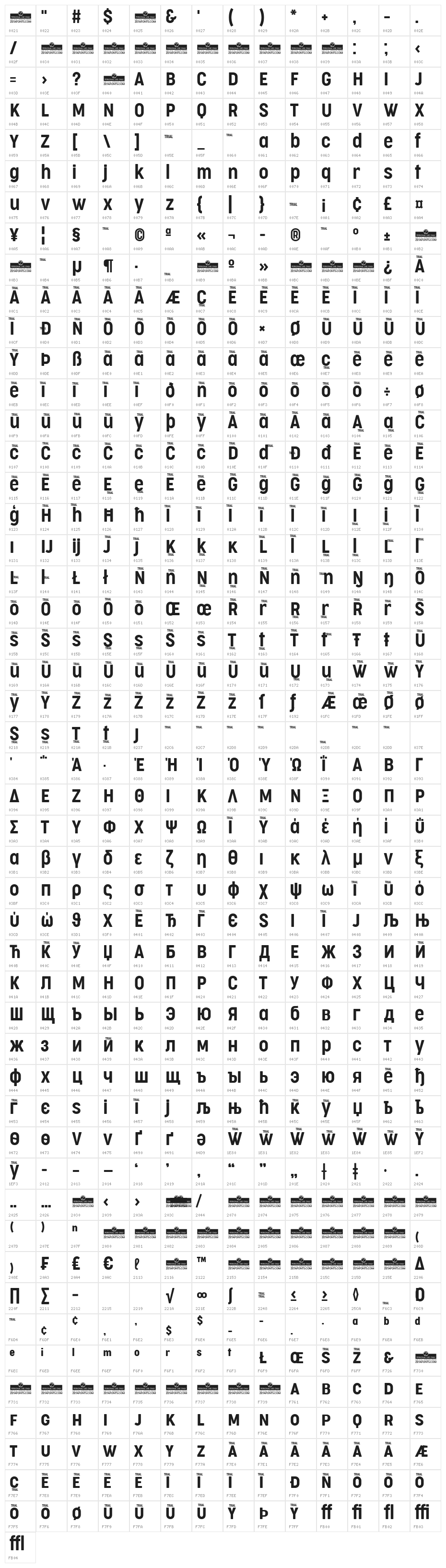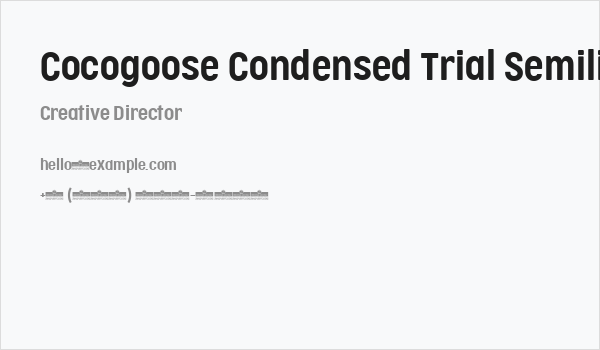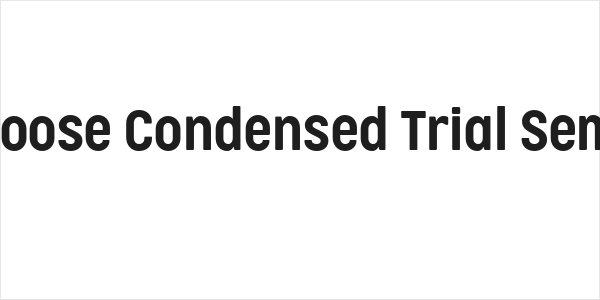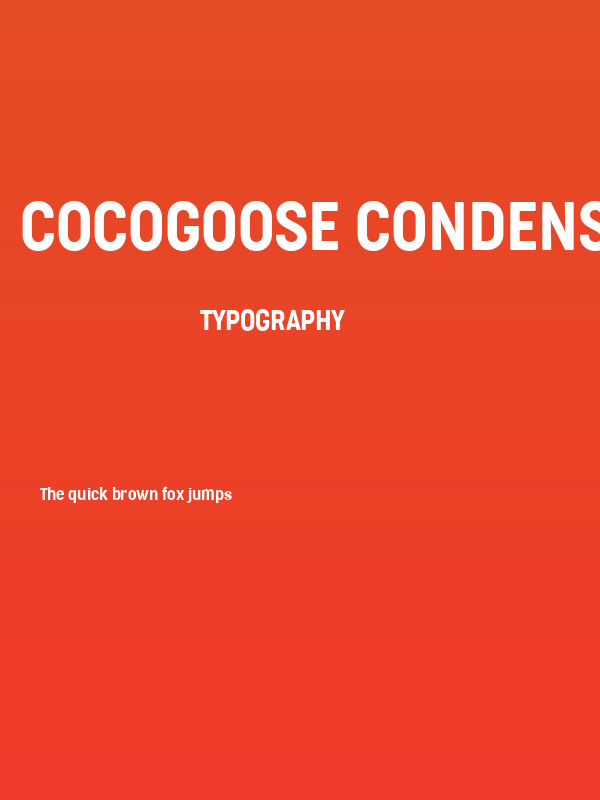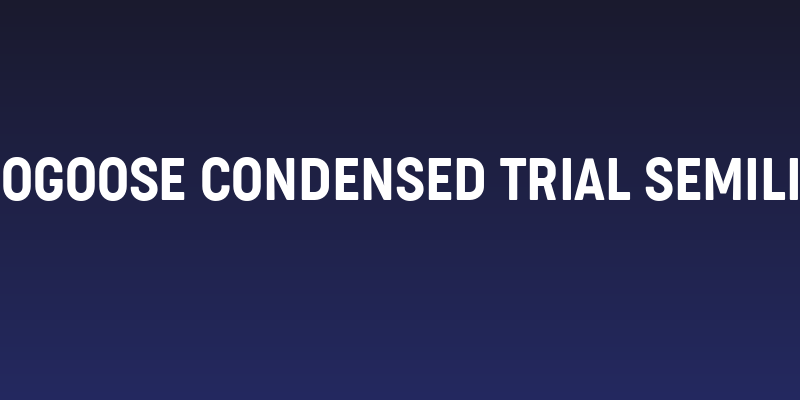
Cocogoose Condensed Trial Semilight Font
Cocogoose Condensed Trial Semilight Description
This font features a modern and clean design with a condensed structure, making it ideal for space-saving applications. The characters are bold and uniform, with a consistent stroke width that provides a strong visual impact. The uppercase and lowercase letters maintain a harmonious balance, while the numerals and special characters are designed to complement the overall style. The font's simplicity and clarity make it highly legible, suitable for both digital and print media.
Use CaseHeadlines, Logos, Advertising
Proposed ProjectsIdeal for branding, advertising, headlines, and editorial design where space is limited and a strong visual presence is required.